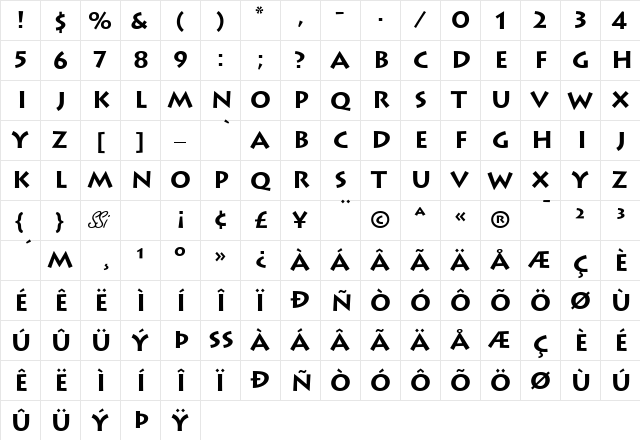
Austere SSi Bold
Austere SSi takes a measured approach to typography — its balanced proportions and neutral character make it a reliable workhorse for both digital and print work. Its bold stroke weight gives it real presence on the page.